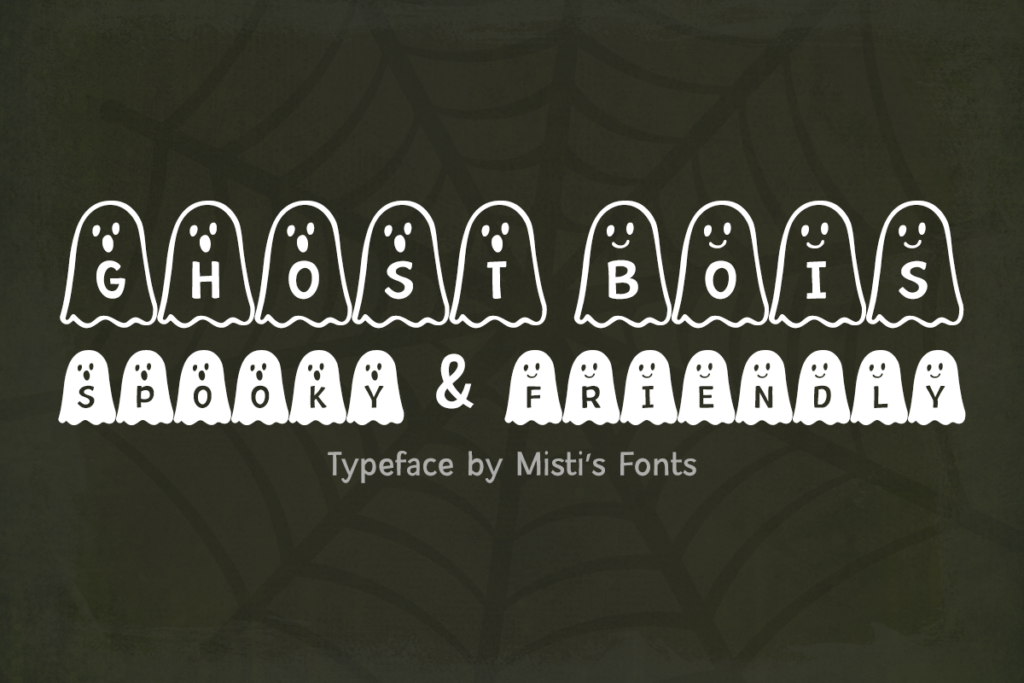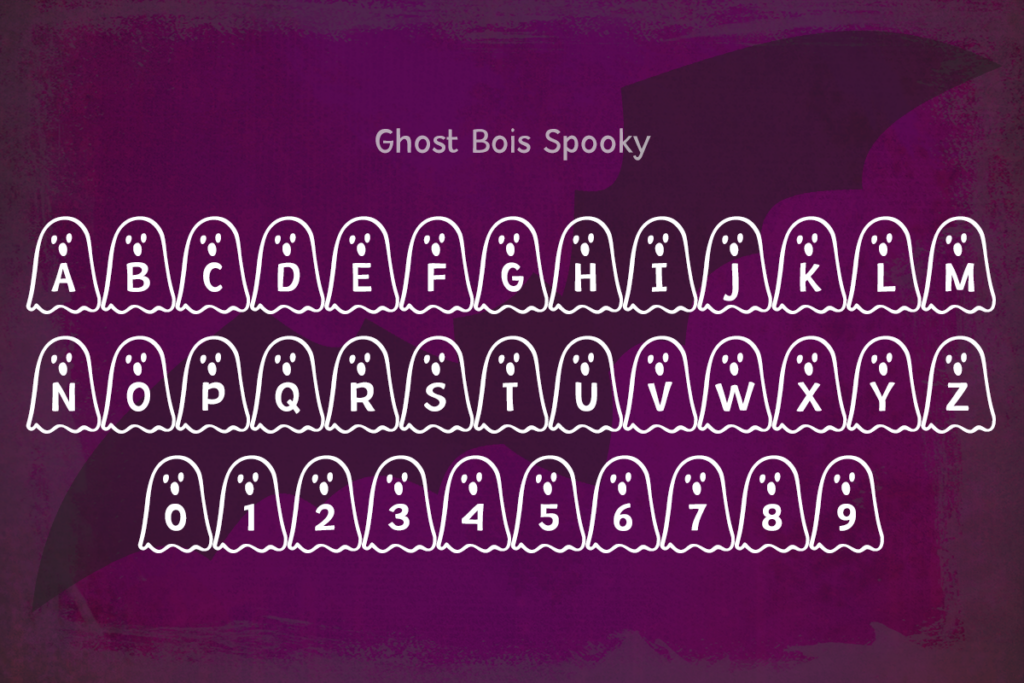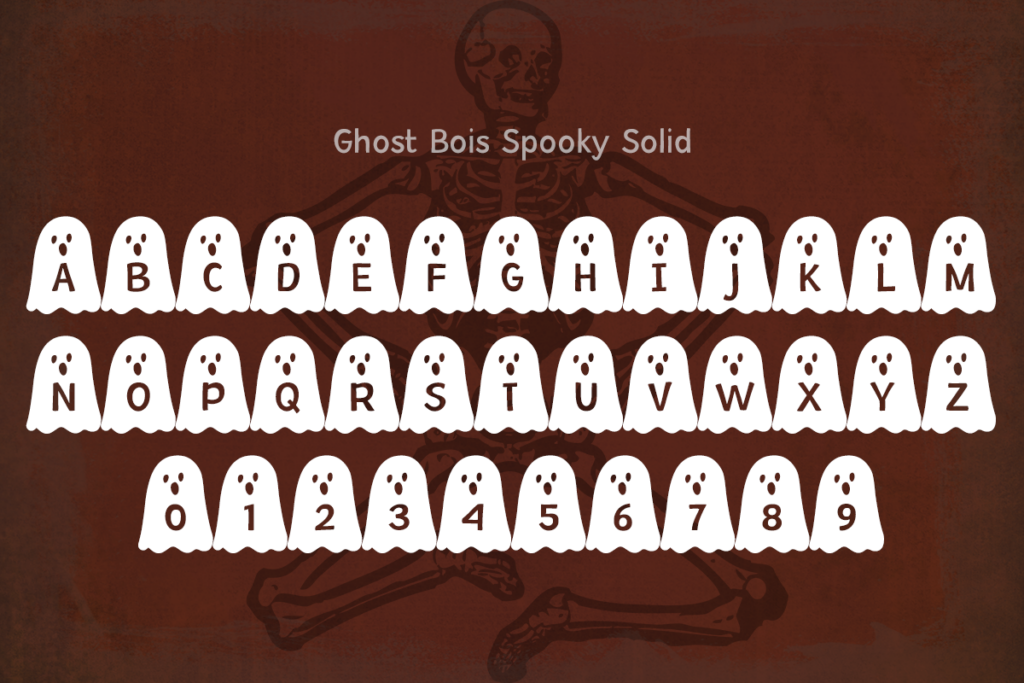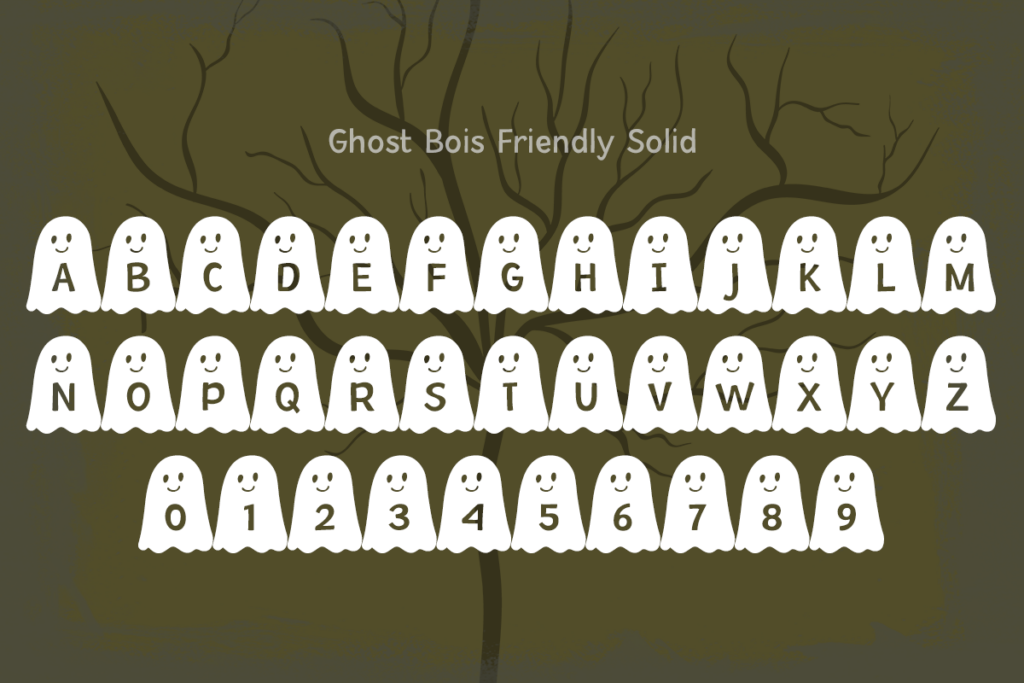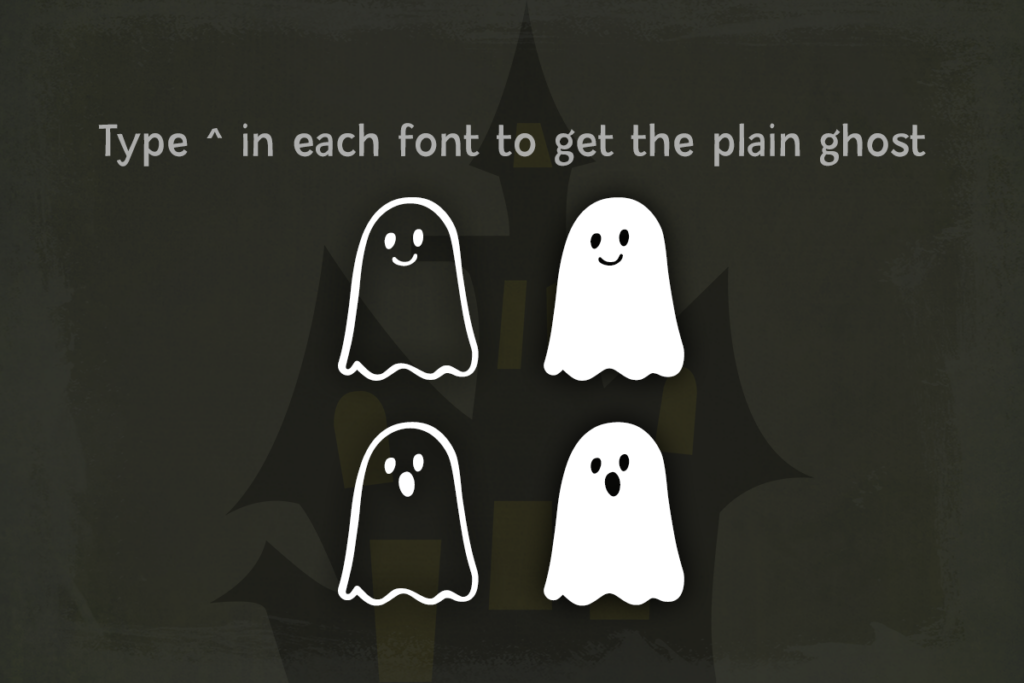
Introducing Ghost Bois, a spirited Halloween font brimming with both whimsical and eerie little phantoms. Its delightful mix of spooky and affable personalities makes it a flawless match for your party invitations, poster designs, crafting endeavors, and all Halloween-themed creations. Imbue your projects with a sliver of spectral allure using Ghost Bois